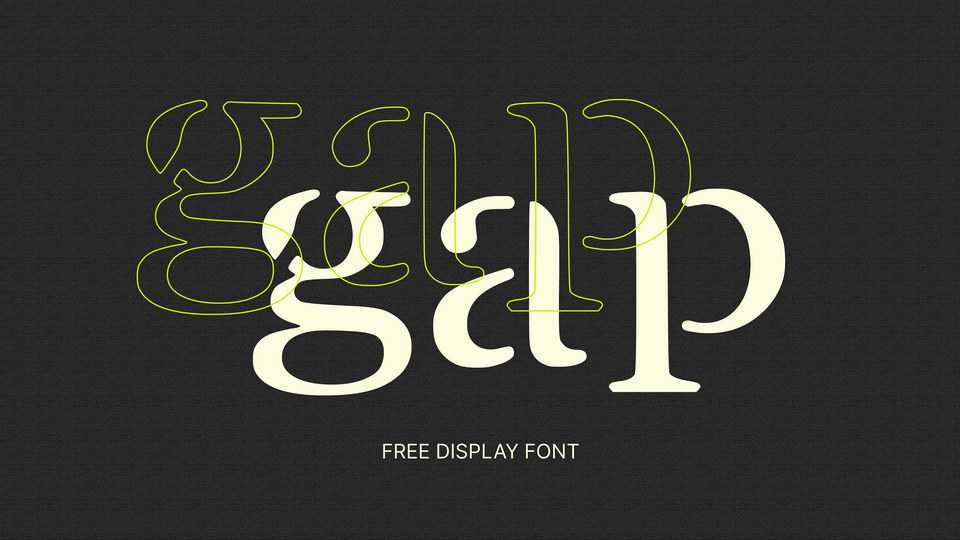
GAP Font › Fontesk – Download Grátis
Download GAP font, a stencil display typeface with soft rounded shapes. GAP is perfect for creating posters, logos and more.
Designer: Cheska Ocampo